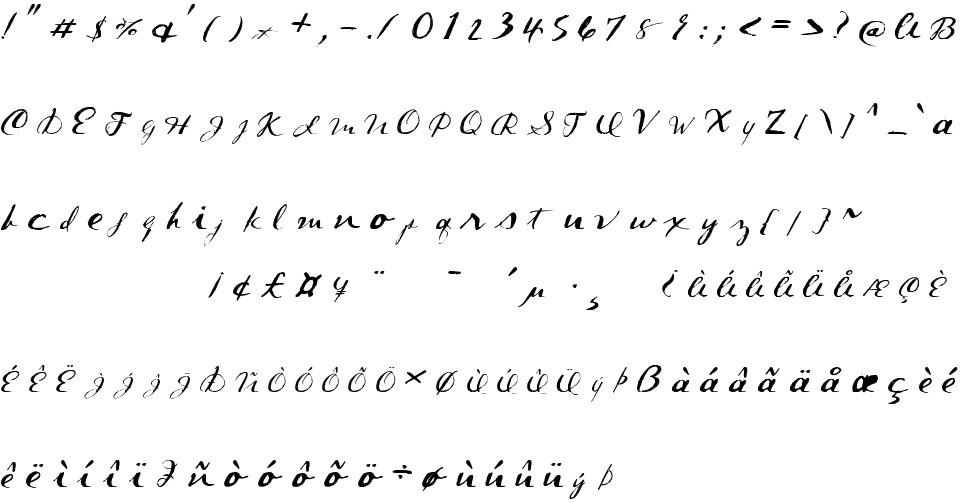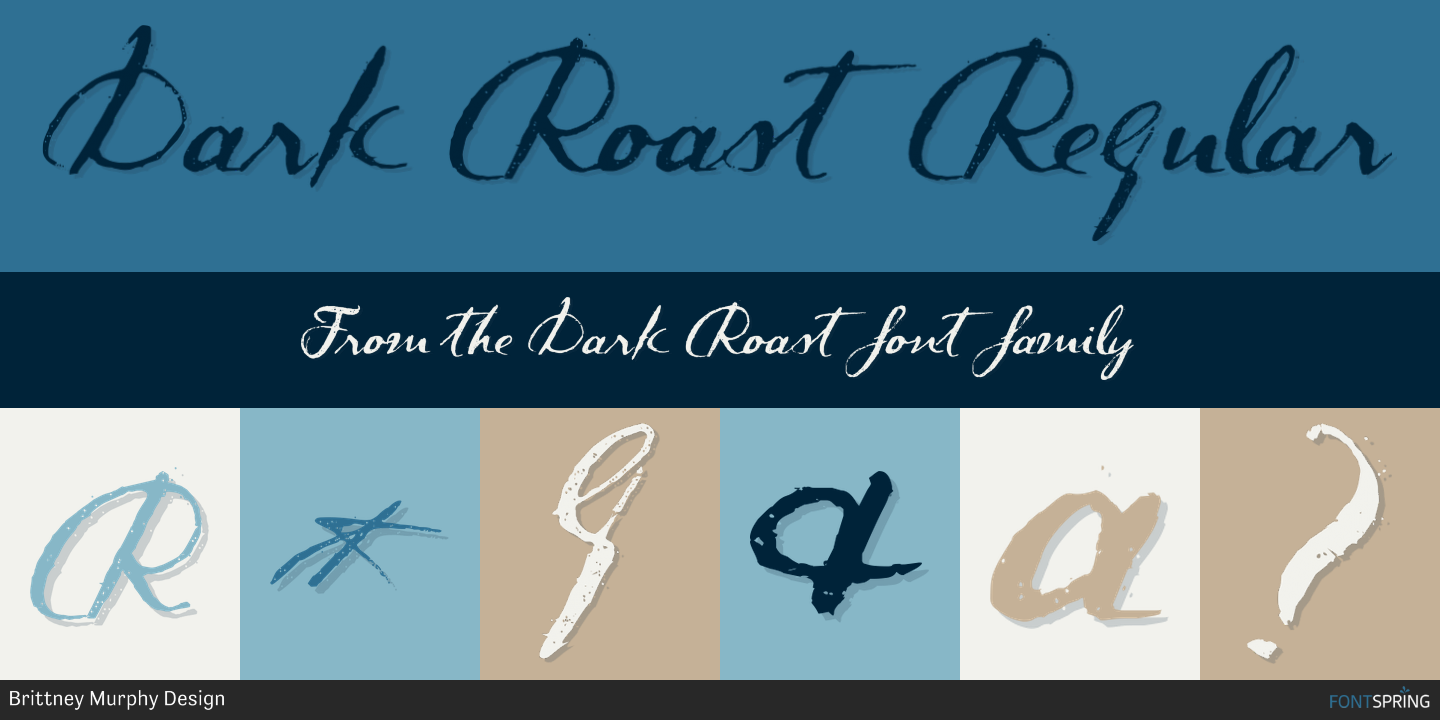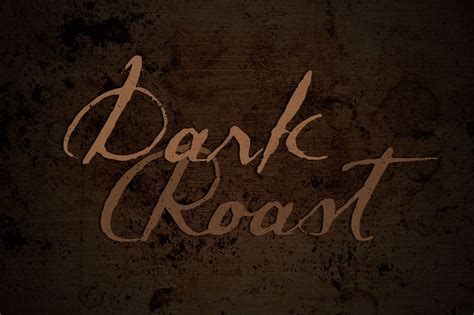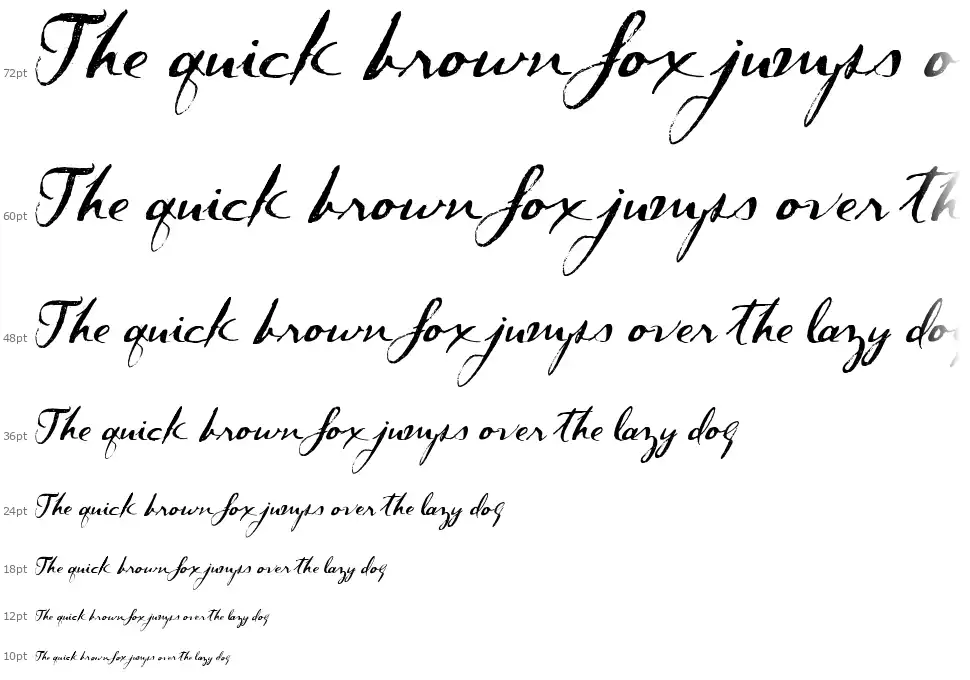
Dark roast gives your project an instant vintage feeling and lots of character. Copy of your license agreement. It is script font and has 1 style. Web download and install the dark roast font by brittney murphy.
Dark Roast Font - Web download and install the dark roast font by brittney murphy. Web dark roast is a sampling of an old letter that was scanned in and recreated into a font. It is script font and has 1 style. Free download of dark roast font. Dark roast brittney muprhy truetype personal use.